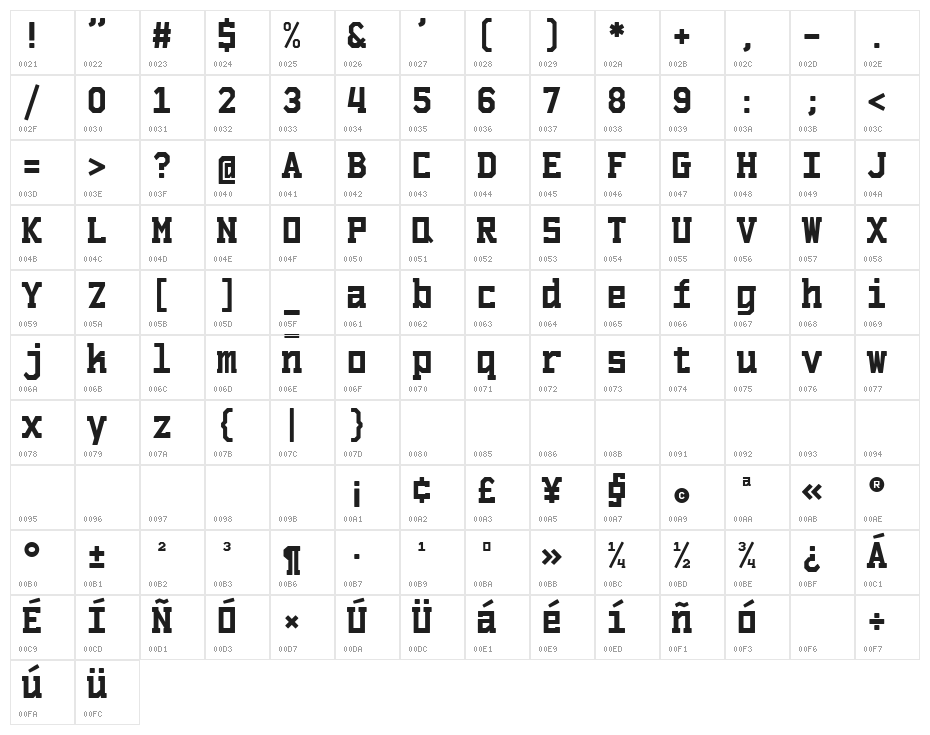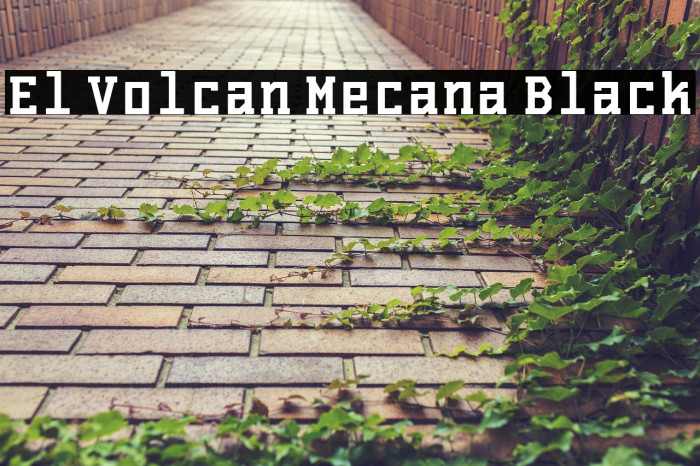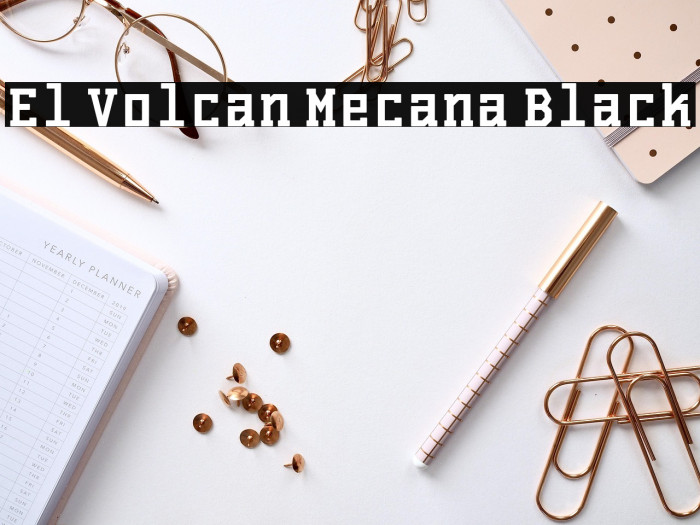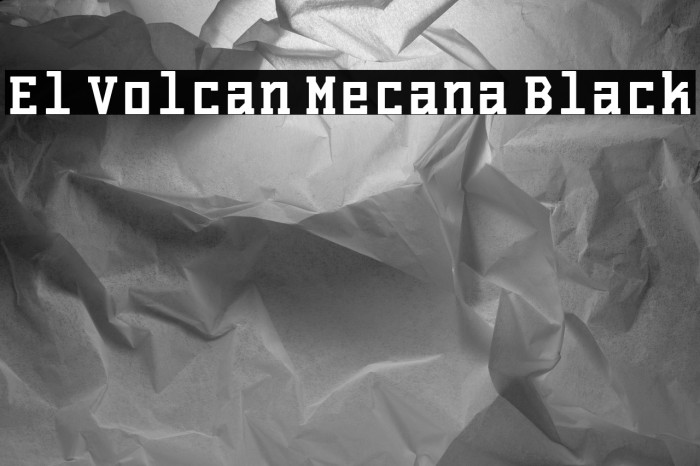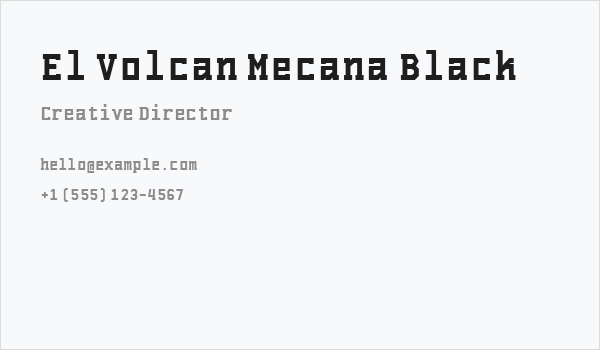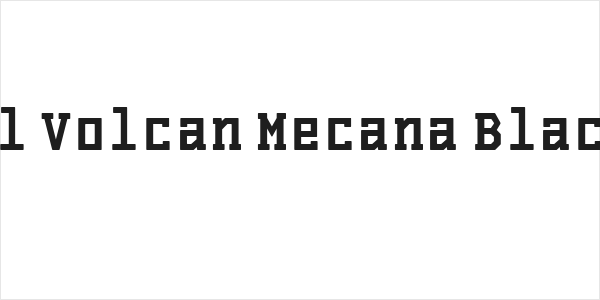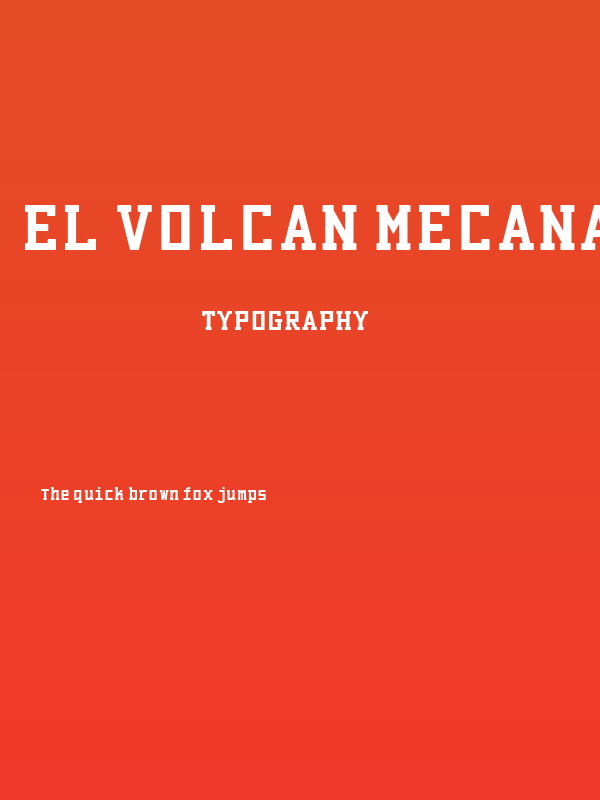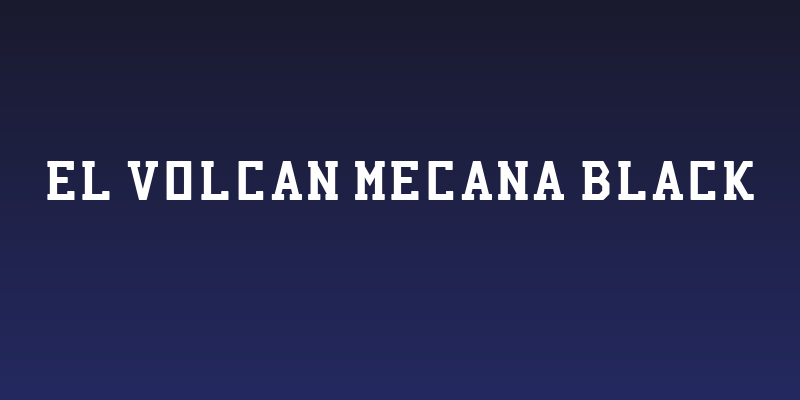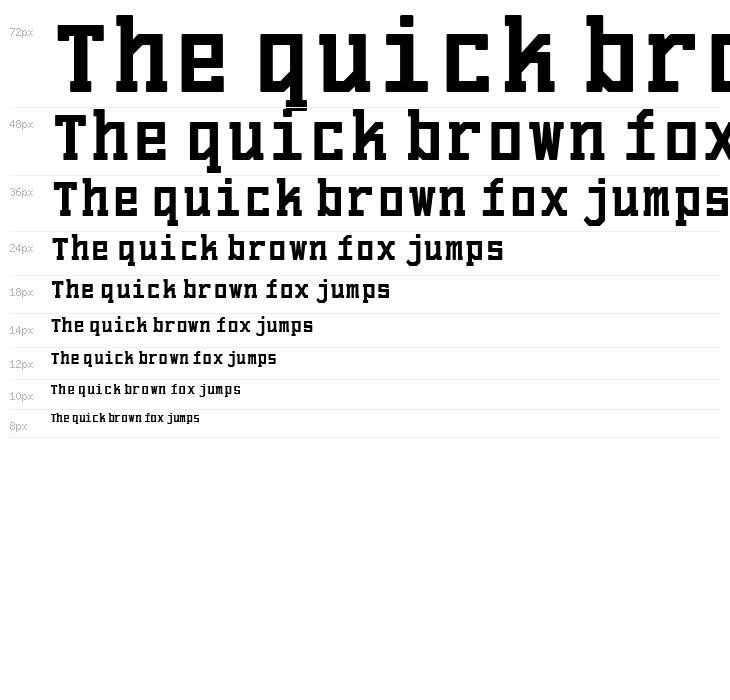
El Volcan Mecana Black Font
El Volcan Mecana Black Description
This typeface exhibits a bold and robust character with strong geometric shapes and a mechanical feel. The uppercase letters are uniform and blocky, while the lowercase letters maintain a consistent weight and structure, enhancing readability. The numbers are equally bold, maintaining the font's overall solid appearance. Special characters are designed to match the boldness and geometric style, ensuring a cohesive look across all glyphs. The font's thick strokes and angular edges give it a commanding presence, making it suitable for impactful designs.
| Overall Style | Modern, Industrial |
| Proposed Projects | Ideal for posters, headlines, branding, and any project requiring a strong, industrial aesthetic. |